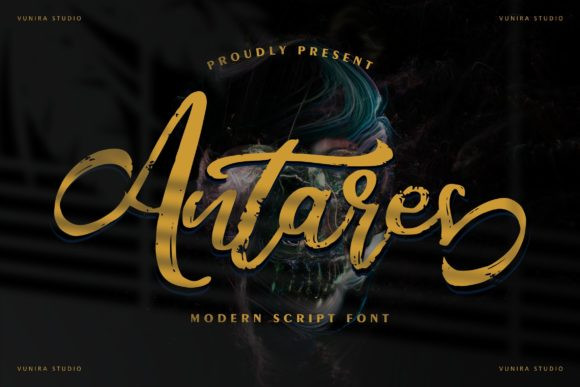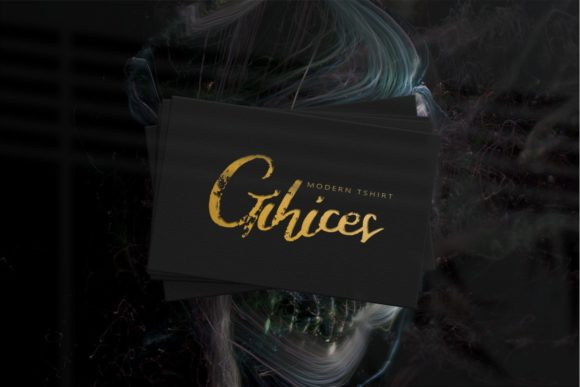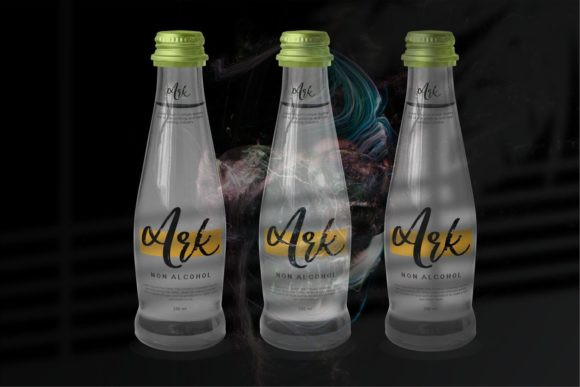
Antares Font
Antares is a ravishing, brushed script font. It is defined by smooth curves and is perfect for fashion branding or editorial designs. Add it confidently to your projects, and you will love the results.